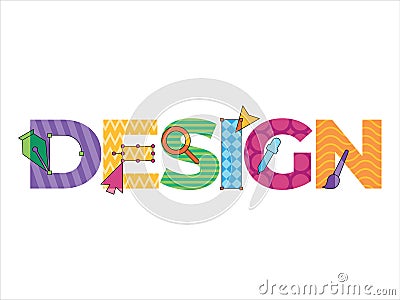
Design Font Colorful Creative Unique Editable Abstract Shape Playful Concept Typographic Alphabet Letters Design Set Stock Photo
Design font colorful creative unique editable abstract shape playful concept typographic alphabet letters design set vector